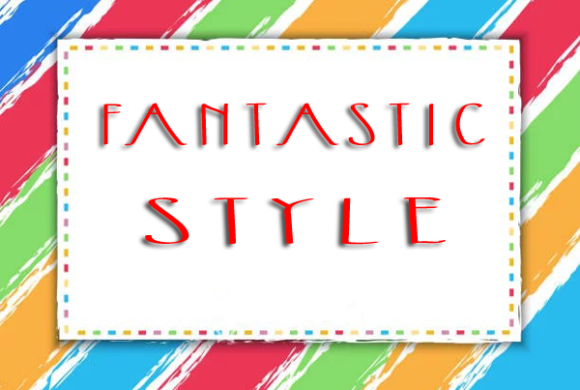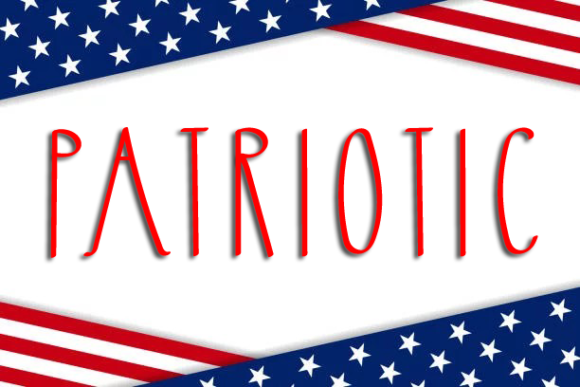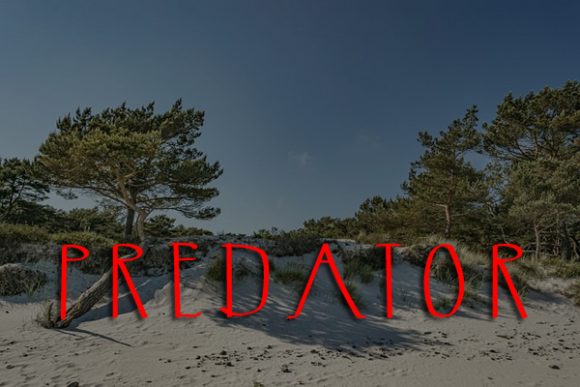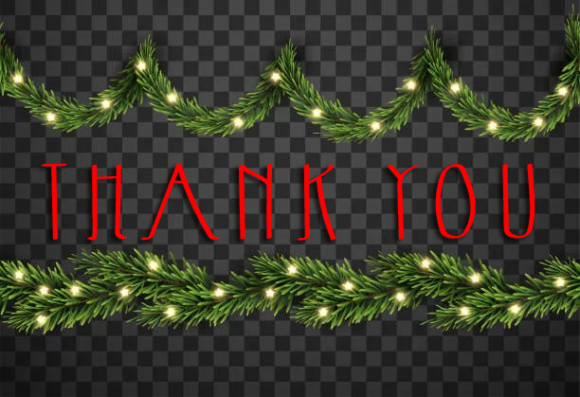
The Ultimate Guide to Funny Font: Adding a Personal Touch to Your Designs
I’ll never forget the time I was working on a project for a client who wanted a chalkboard-style quote for their restaurant’s menu. I had spent hours browsing through font libraries, but nothing seemed quite right. That was when I stumbled upon the Funny font. Its thin, clean lines and simple handwritten style immediately caught my attention. I knew I had found the perfect fit. In this article, I’ll share my experience with the Funny font, its features, and how to make the most of it in your designs.
An Honest Review of Funny Font
So, what makes the Funny font so special? Here are some things I love about it:
- ✨ Authentic look: The Funny font has an authentic, hand-written feel that adds a personal touch to any design.
- ✅ Clean and simple: The font’s clean lines and simple style make it easy to read and versatile for various design projects.
- 💡 Perfect for chalkboard quotes: The font’s style is reminiscent of chalkboard writing, making it ideal for creating quotes, posters, and other designs that require a personal touch.
While the Funny font is amazing, it’s not without its quirks. Here are a few things to keep in mind:
- 🤔 Limited variations: The font has a limited number of variations, which can make it less suitable for projects that require a lot of stylistic changes.
- ⚠️ Not suitable for body text: Due to its thin lines and handwritten style, the Funny font is best used for headings and short text passages, rather than body text.
The Funny font comes with a range of OpenType features and glyphs that can add variety and interest to your text. Here are some tips for exploring these features:
- Stylistic alternates: Many fonts, including Funny, offer stylistic alternates that can be used to create a more varied look. To access these alternates, look for the Stylistic Alternates feature in your design software.
- Glyphs: Glyphs are special characters that can be used to add decorative elements to your text. The Funny font comes with a range of glyphs, including flourishes and swashes.
The Story Behind Funny Font
The Funny font was designed by a talented typographer who wanted to create a font that would add a personal touch to designs. The font’s simple, handwritten style is inspired by traditional chalkboard writing. The designer aimed to create a font that would be easy to read and versatile enough for various design projects.
| Is the Funny font suitable for body text? | No, the Funny font is best used for headings and short text passages, rather than body text. |
| Is the Funny font available in different languages? | The Funny font may not be available in all languages, but it does support a range of characters and glyphs. |